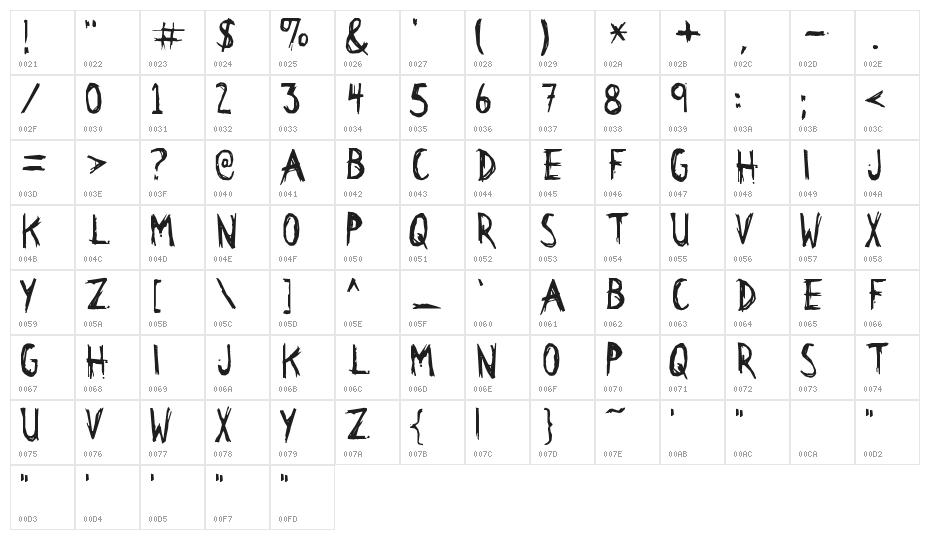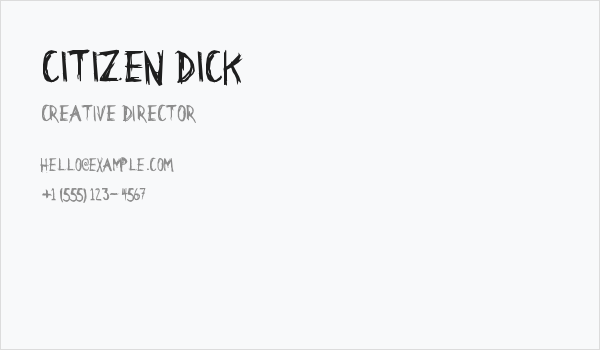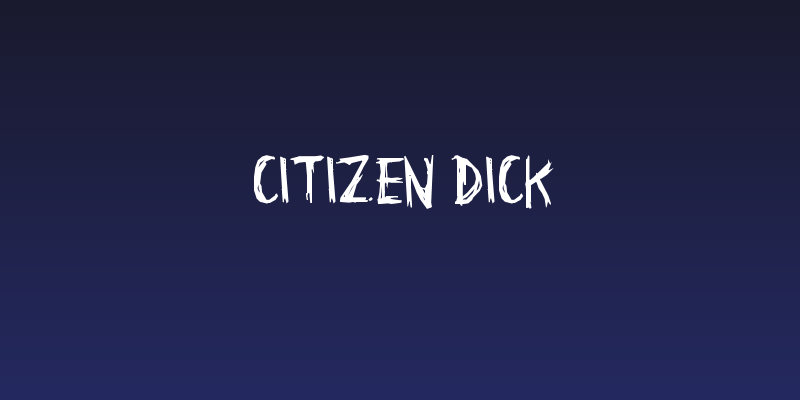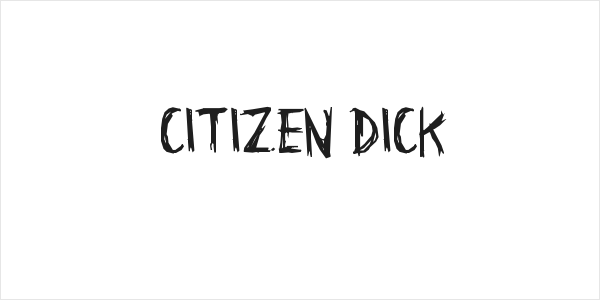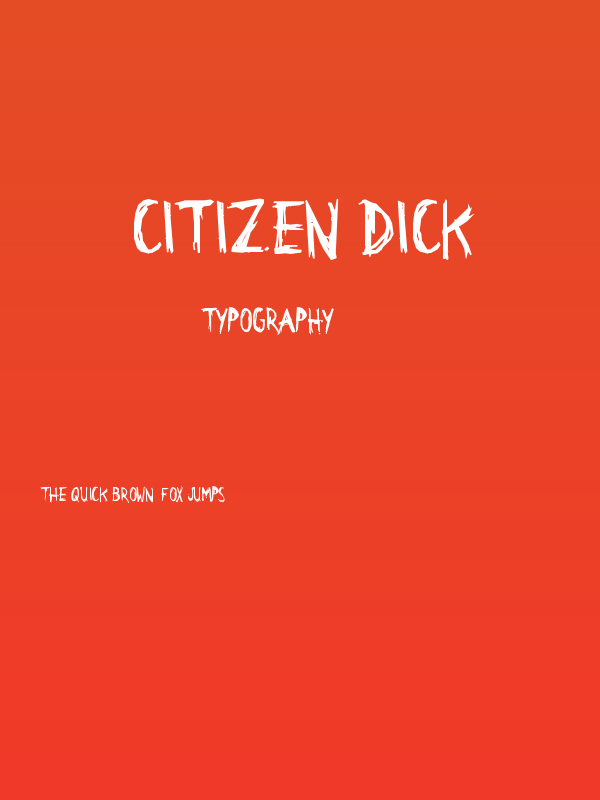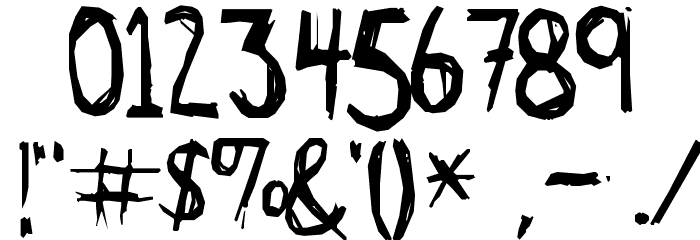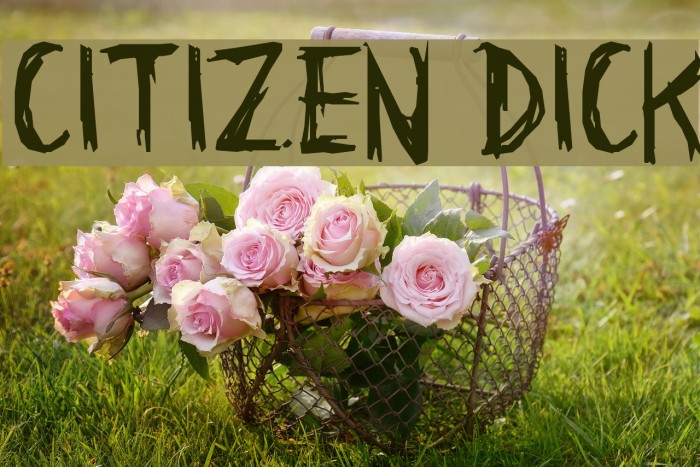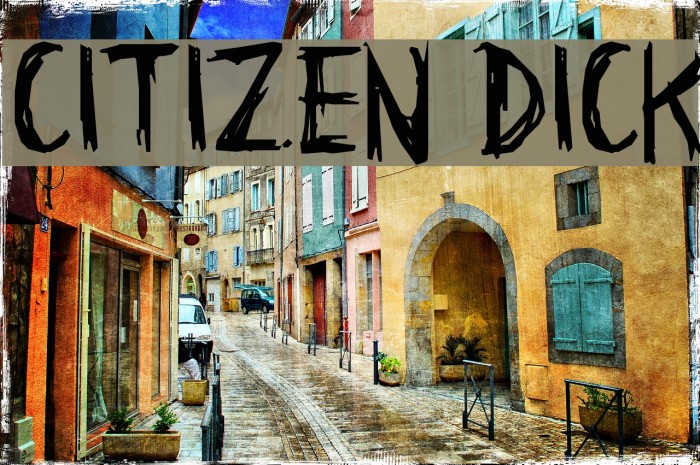
Citizen Dick Font
Citizen Dick Description
This font exudes a raw, edgy aesthetic with its hand-drawn, brush-like strokes. Each character appears as if it has been painted with a thick brush, giving it a rugged and artistic feel. The uneven edges and varying stroke thicknesses contribute to its dynamic and energetic appearance. This style is reminiscent of street art or graffiti, making it stand out with a rebellious and bold personality. The uppercase and lowercase letters maintain a consistent style, while the numerals and special characters complement the overall design, adding to its versatility.
| Overall Style | Modern, Urban, Artistic |
| Proposed Projects | Ideal for album covers, streetwear branding, posters, and urban-themed designs. |